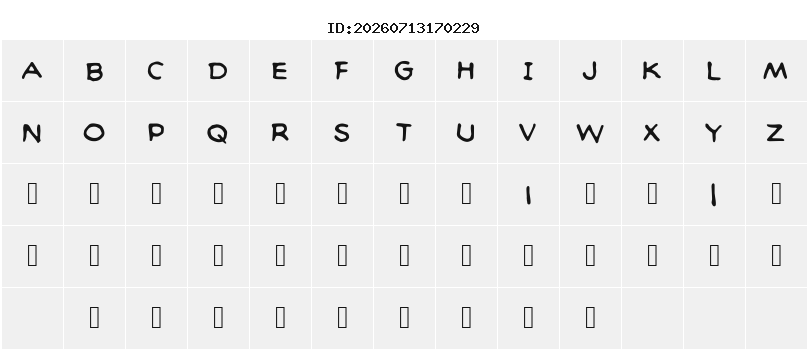
Baltimore Comic Preview
• Font Name: Baltimore Comic
About Baltimore Comic.ttf
Baltimore Comic.ttf is a modern, elegant sans-serif font designed for ultimate readability and visual harmony. Perfect for branding, headlines, web design, and print materials.